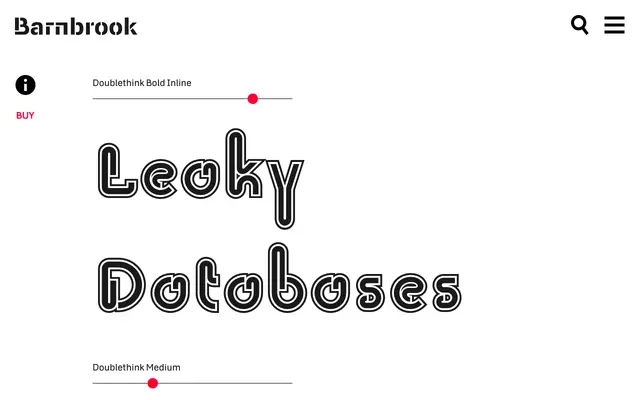
Doublethink
Barnbrook · Vinko Ožić-Pajić (original lettering); Barnbrook (typeface development)
A two-weight display typeface revived from 1960s Yugoslav shop-front lettering, with a bold inline cut that carries the weight of its political origins.
Developed from lettering drawn by Vinko Ožić-Pajić for Standard Konfekcija, the first fashion brand in Communist Yugoslavia, the design translates hand-drawn signage into a digital typeface offered in Medium and Bold Inline. The source material carries genuine historical specificity: a military fabric company turned fashion retailer, known for introducing plastic bags to the country, now vanished after the fall of Communism. Barnbrook named it after Orwell's concept from Nineteen Eighty-Four, pointing at the contradictions embedded in its origins and their resonance in contemporary surveillance culture.
Derived from hand-lettered shop signage from 1960s Yugoslavia, the design has an expressive, manually constructed quality with a bold inline variant that places it firmly in the display category.